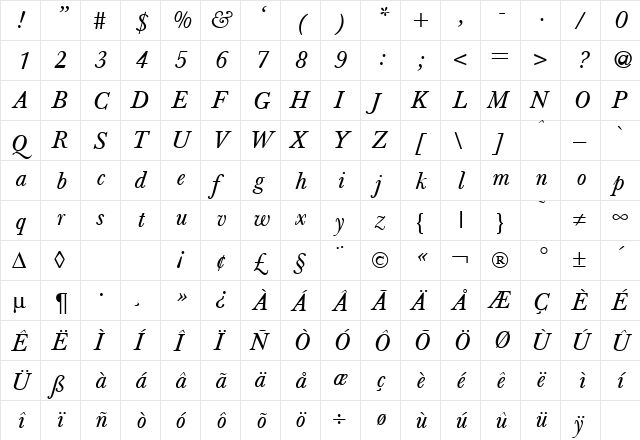
BaskervilleTwo RegularItalic
Design Context for BaskervilleTwo Typeface
BaskervilleTwo offers clean, dependable letterforms without strong stylistic allegiance, making it a practical choice for designers who need flexibility. The dynamic lean of this cut emphasises speed and emphasis in any layout.
Pro Tip: Try BaskervilleTwo for annotation and caption copy alongside an upright companion — the contrast in angle creates a dynamic but ordered typographic system.